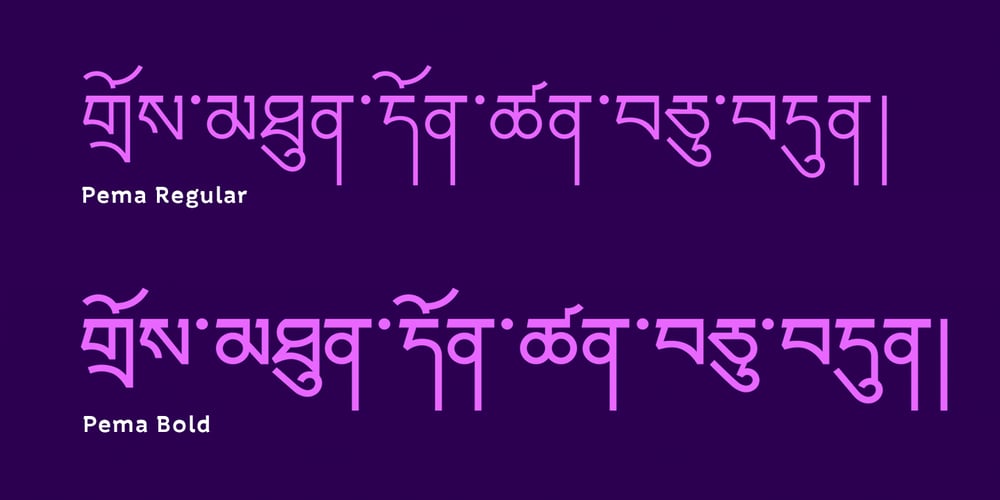
Pema
Pema font
Pema Font Family was designed by Markus Strümpel and published by Designpiraten. Pema contains 2 styles and family package options. Pema – a contemporary Tibetan sans serif encoded in the Unicode standard. This is the first Tibetan typeface influenced by western sans serif fonts. It was designed especially to match multilingual purposes. The rather calligraphic Tibetan scripts did not match with the design aesthetics of western and Indian fonts and so I came up with the idea to design a “modern” Tibetan sans serif. Pema comes in two weights, Regular and Bold, each equipped with almost 1.300 glyphs.